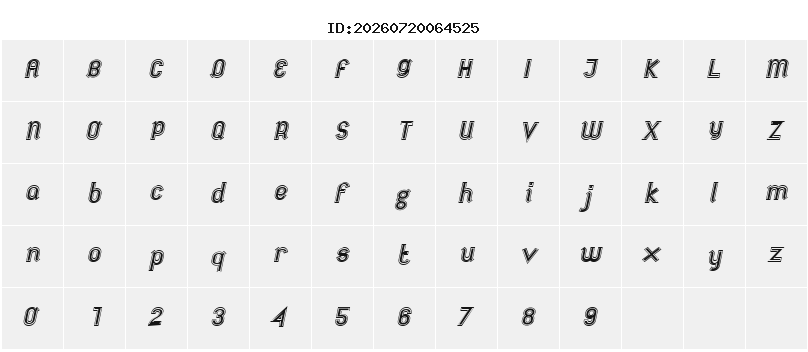
futile Preview
• Font Name: futile
• Font Style: extraoutitalic
• Font ID: Macromedia Fontographer 4.1.5 futile extraoutitalic
• Full Font Name: futile extraoutitalic
• Version: Macromedia Fontographer 4.1.5 12.03.2001
• PostScript Name: Futileextraoutitalic
• Character Count: 81
About futile.ttf
futile.ttf is a modern, elegant sans-serif font designed for ultimate readability and visual harmony. Perfect for branding, headlines, web design, and print materials.